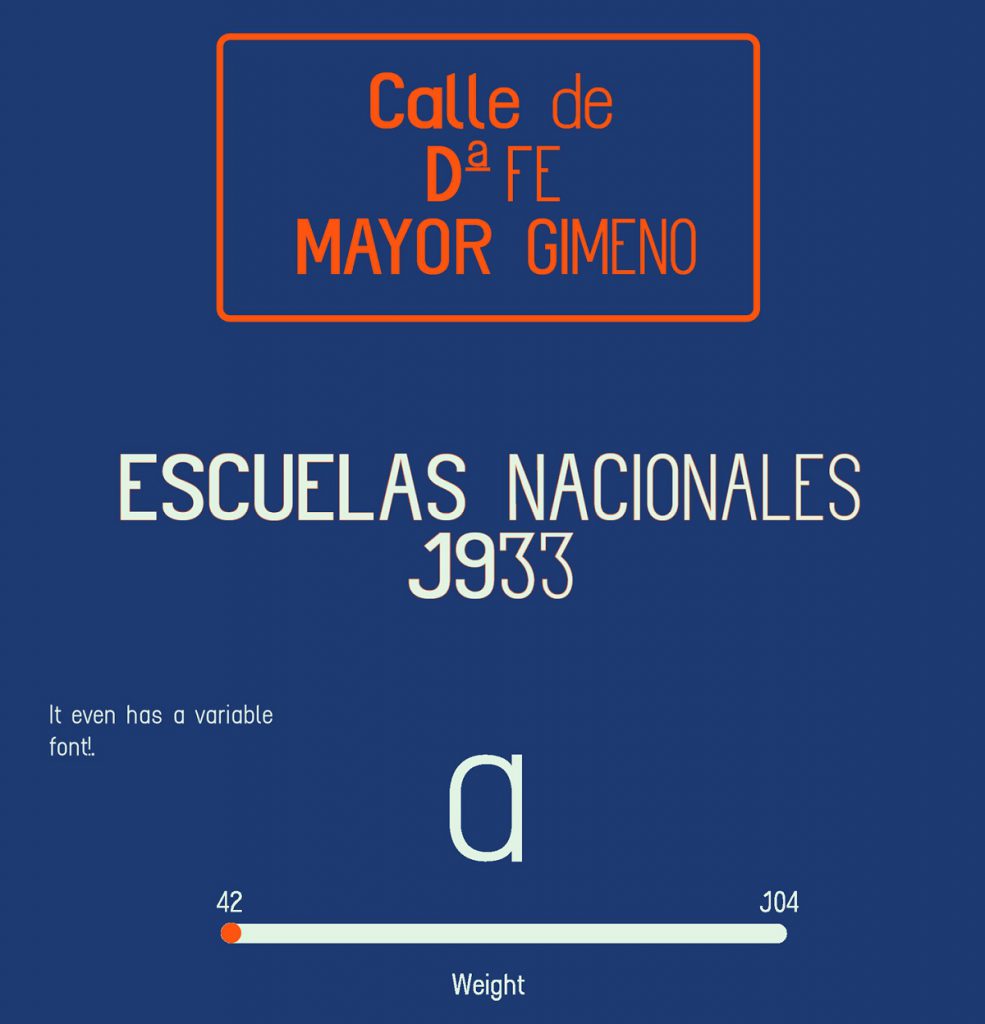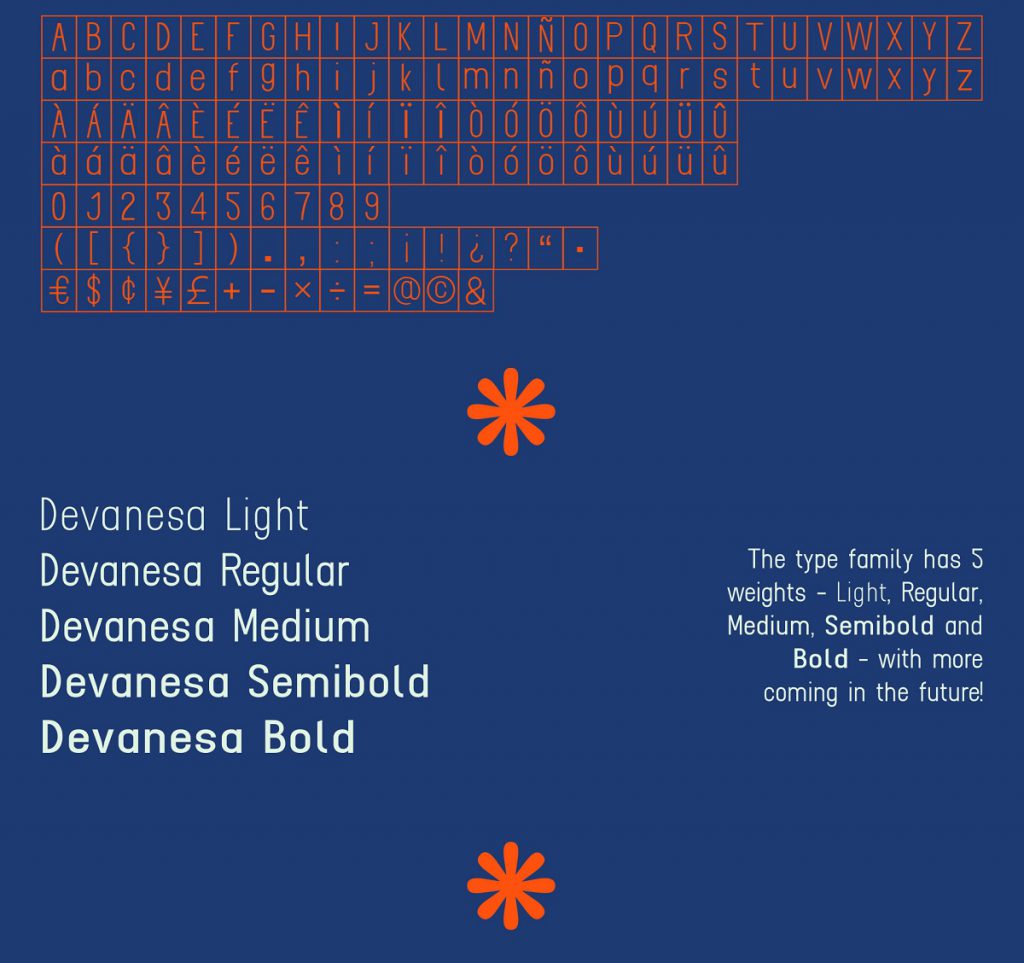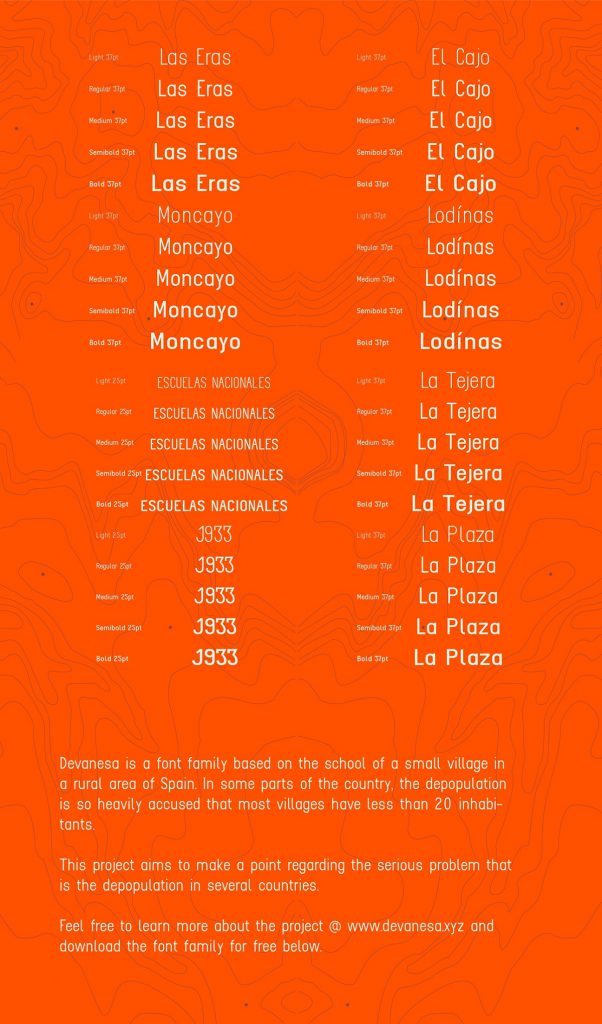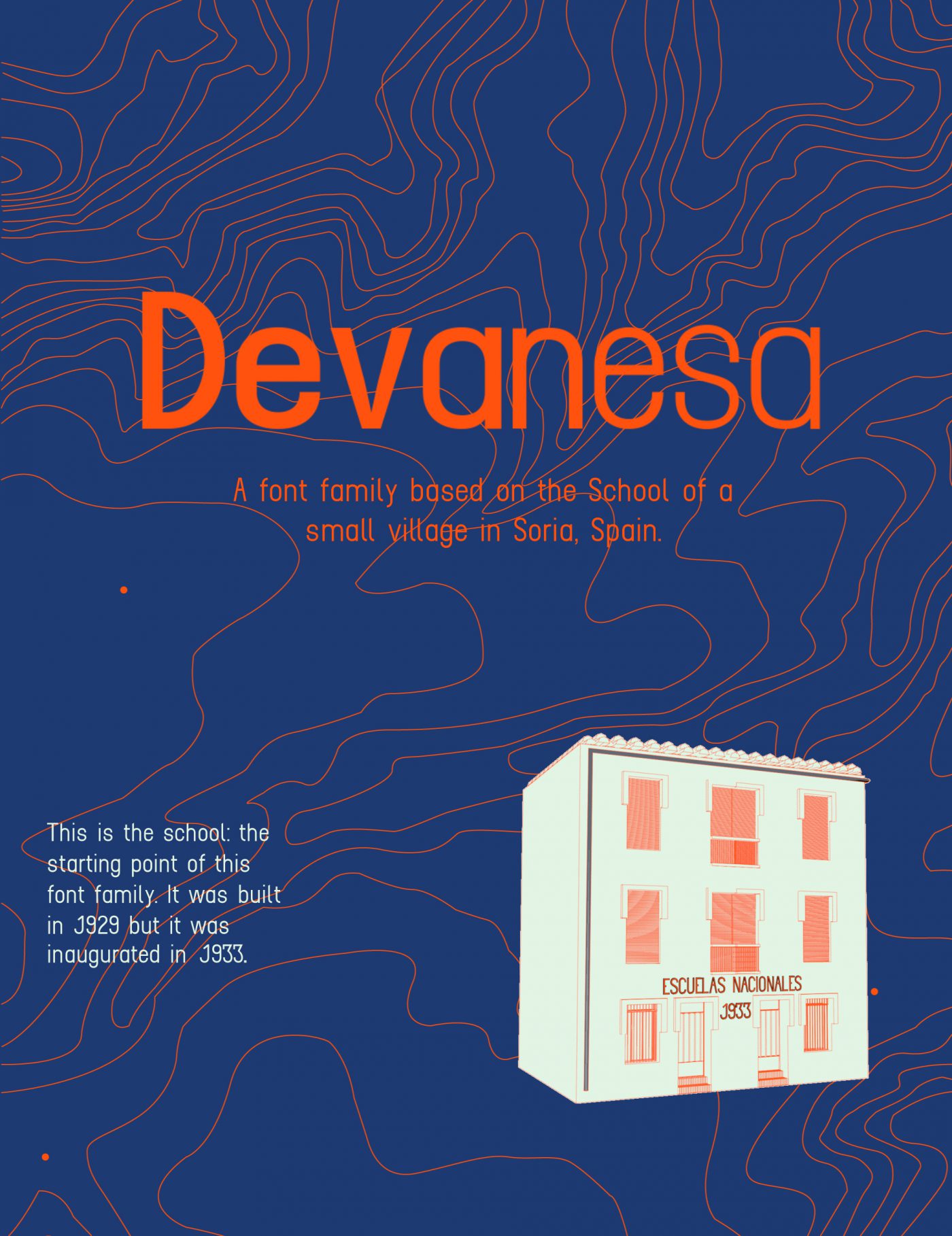
Devanesa: Free Font Family
Devanesa Free Font Family is a free font family from Jorge Gutiérrez Marco. The font is based on the school of a small village in rural Spain, designed to fight a growing problem: depopulation. If you find it interesting, then you can learn more about this font and its origin by clicking here.